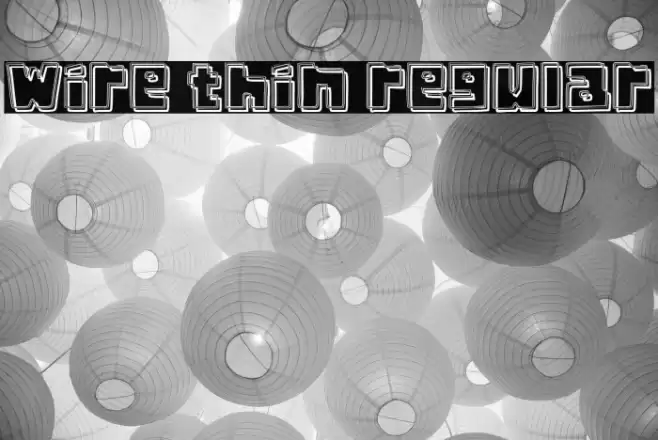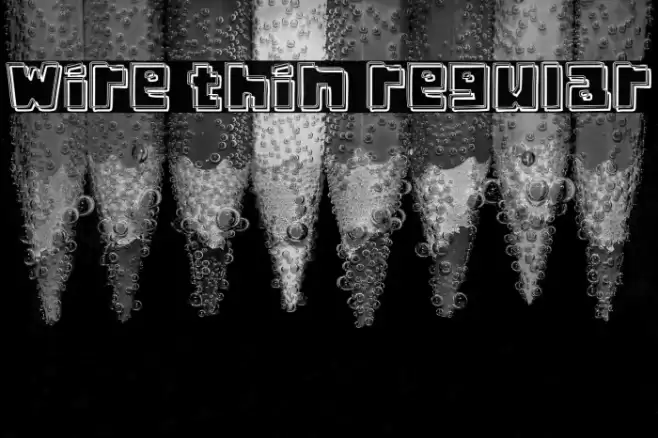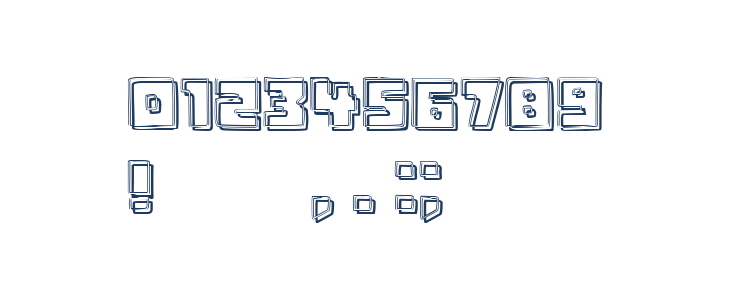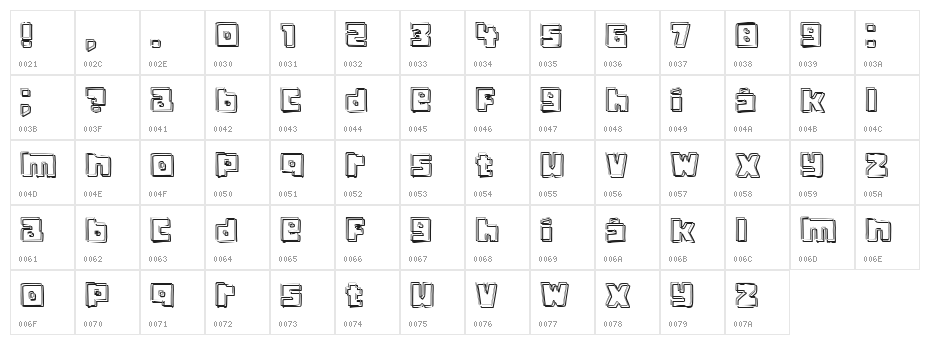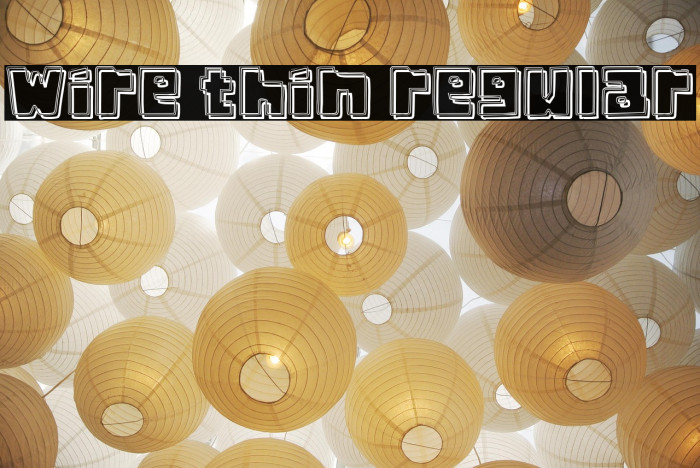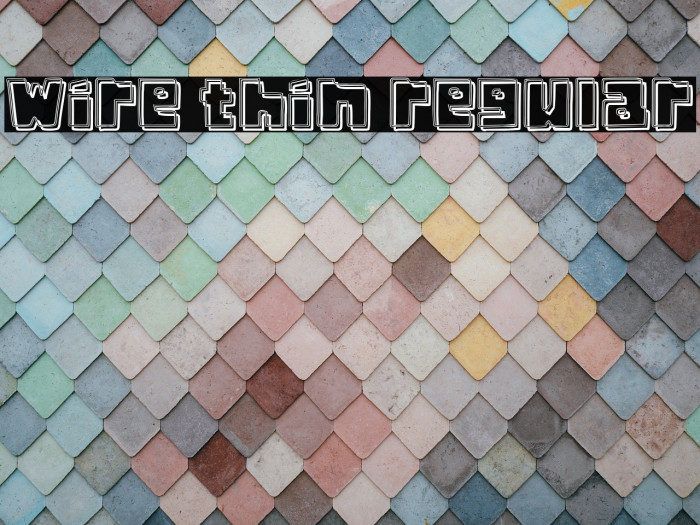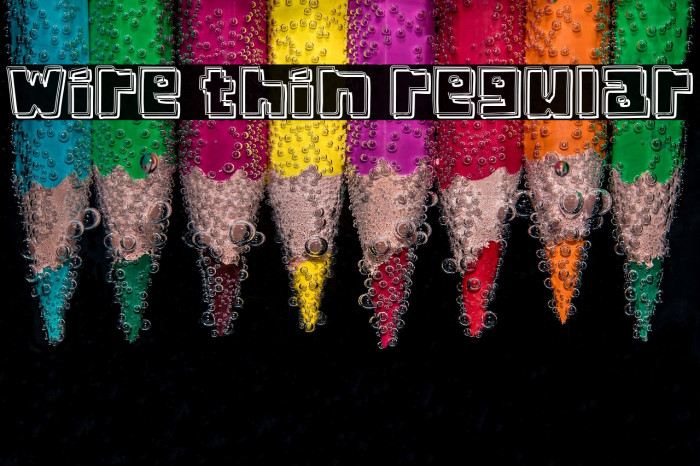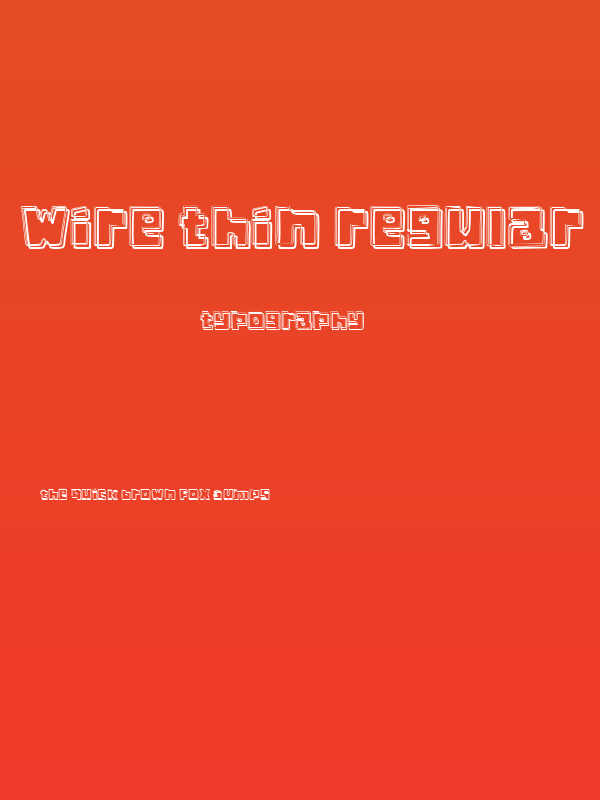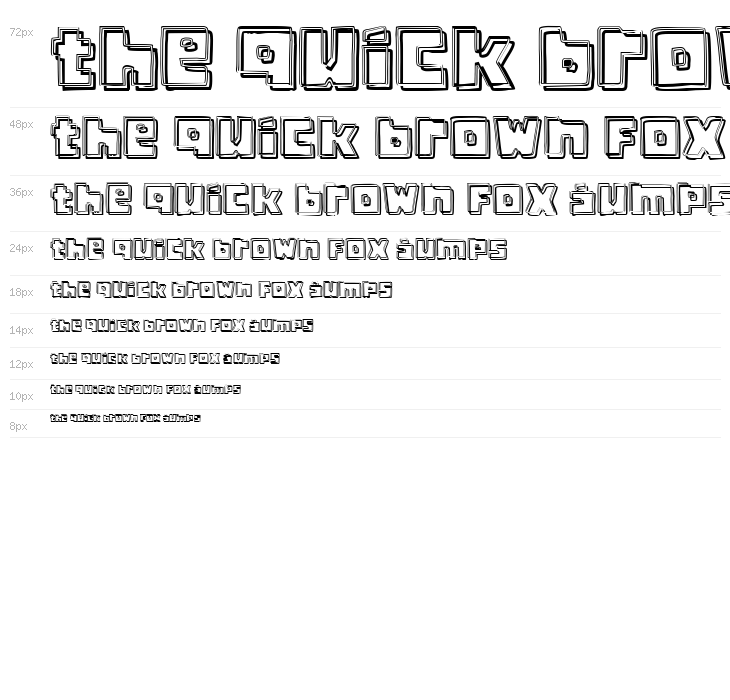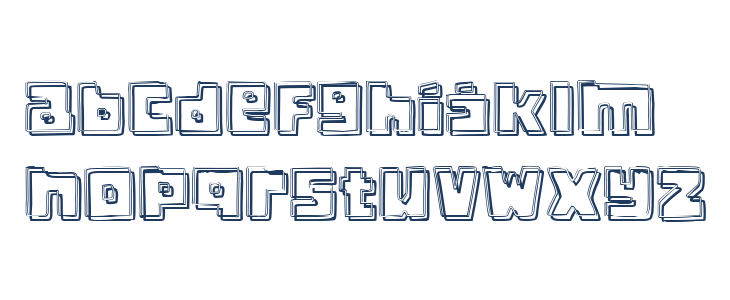
Wire Thin Regular Font
Wire Thin Regular Description
This font features a unique, three-dimensional outline style that gives each character a bold, structured appearance. The letters are designed with a wireframe effect, creating an illusion of depth and space. The uppercase and lowercase letters maintain a consistent geometric form, with sharp angles and clean lines. Numbers and special characters follow the same design principles, ensuring a cohesive look across all glyphs. The font's distinct style makes it stand out, offering a modern and edgy aesthetic that is both eye-catching and versatile.
A bold, three-dimensional outline font with a wireframe effect from Uncategorized fonts.